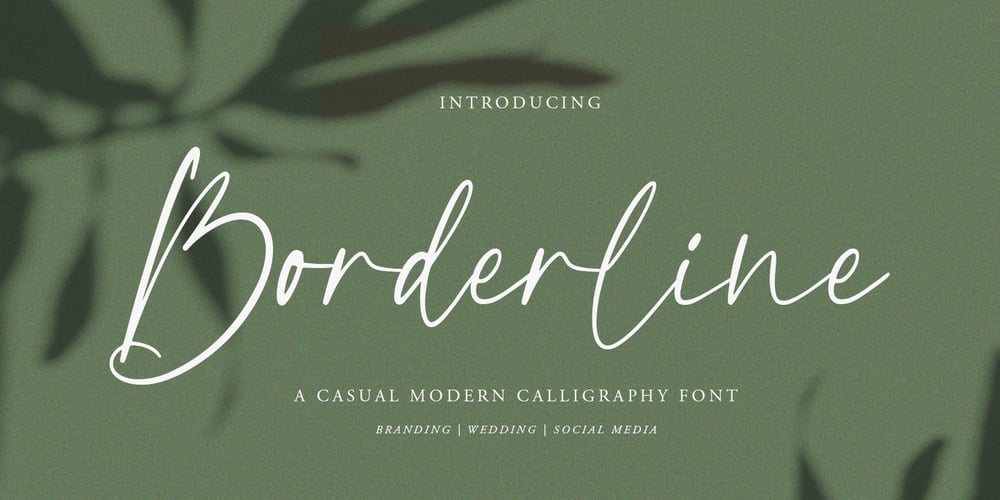
Borderline Font Family was designed by Asep Rendi and published by Arendxstudio. Borderline contains 1 styles and family package options. Borderline is a casual modern script font that is luxurious in a casual and distinctive way. It is perfect for your branding design and will also be very beautiful in your wedding invitations and business cards and especially for your brand name logotype. Borderline Luxury Calligraphy has beautiful Uppercase and Lowercase, figures and ligature. There it is! I really hope you enjoy it. Comments and likes are always welcome and accepted. More importantly, don’t hesitate to send a message if you have a problem or question. Now just read this, go there and make it happen.